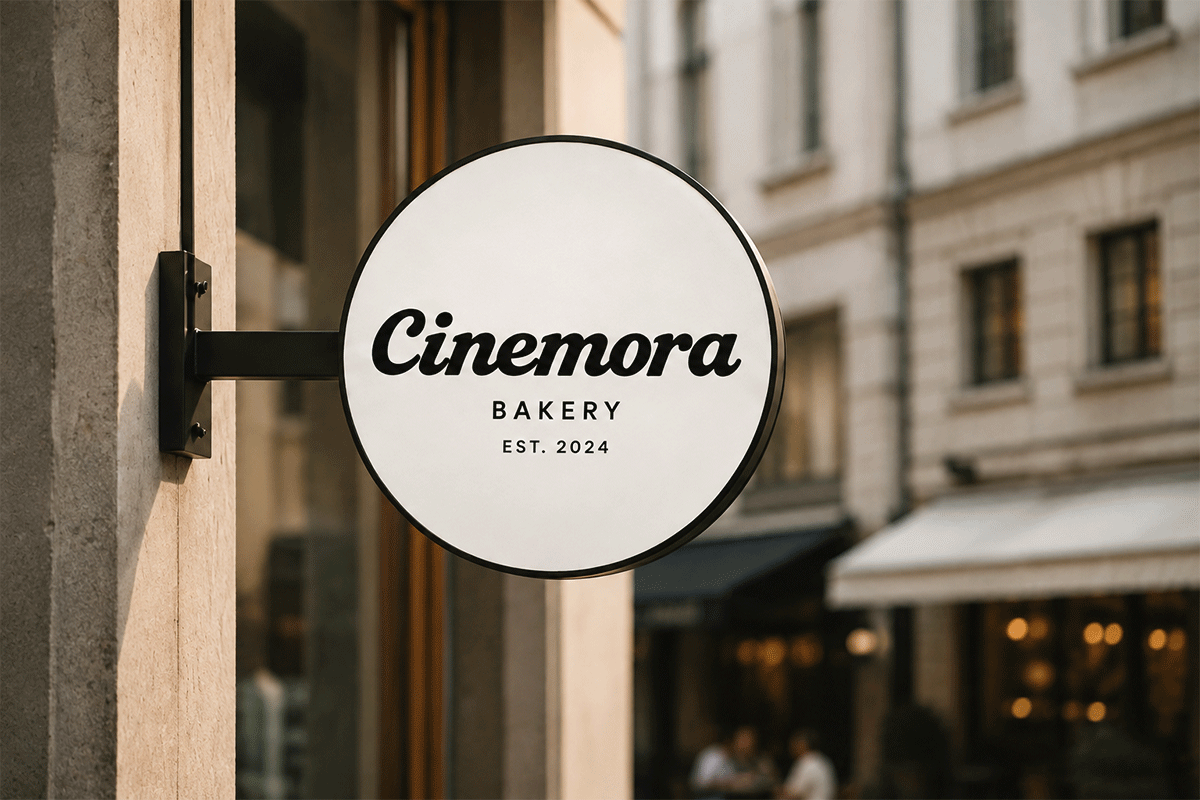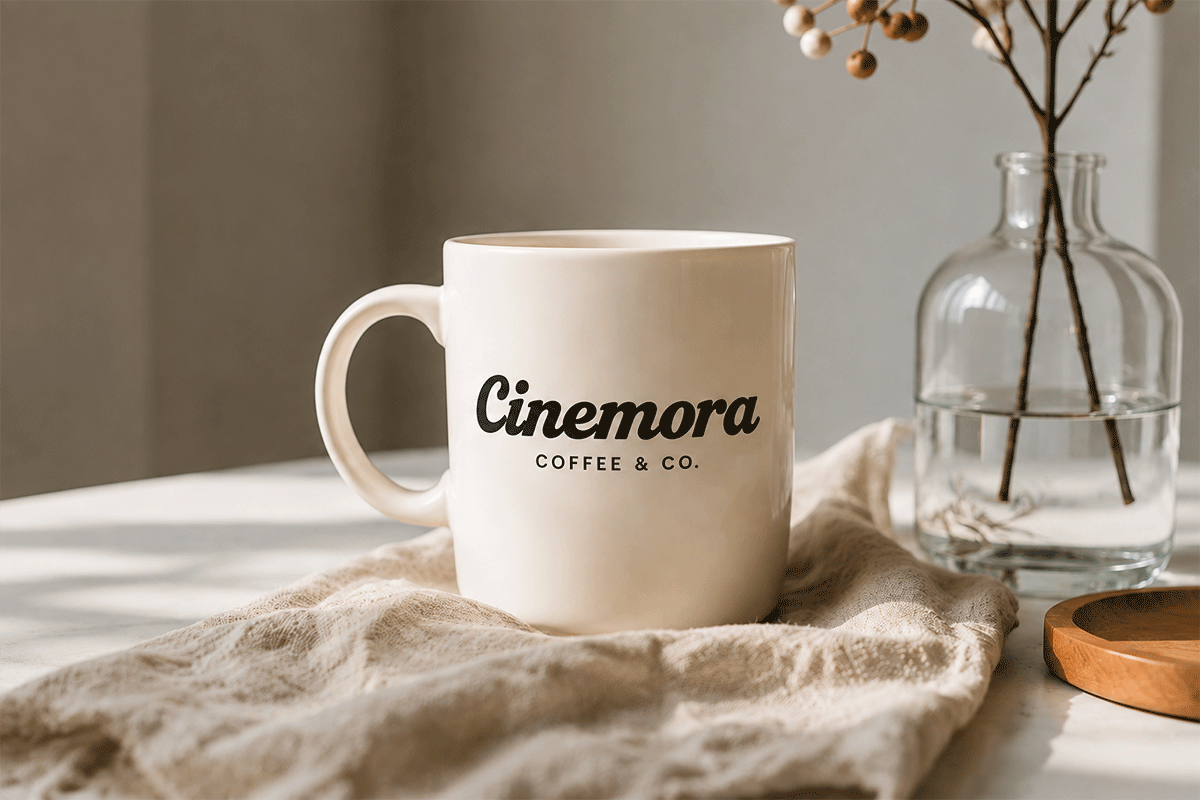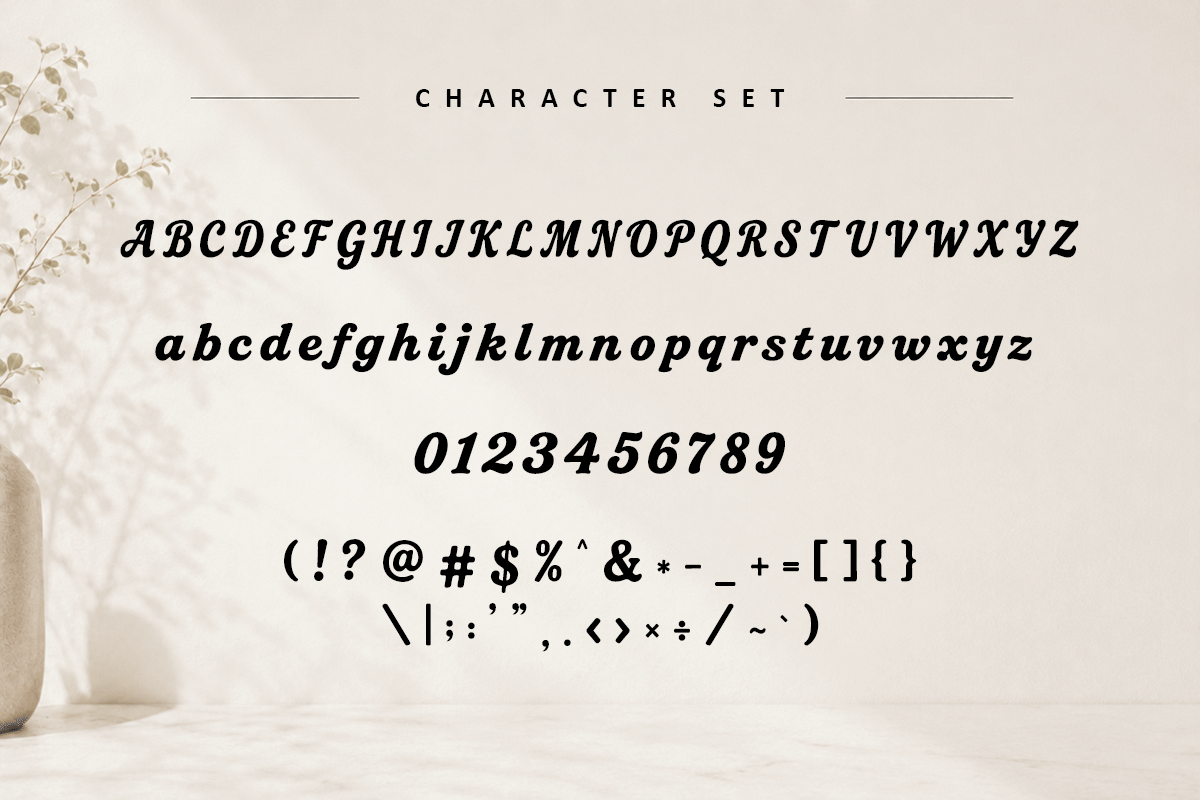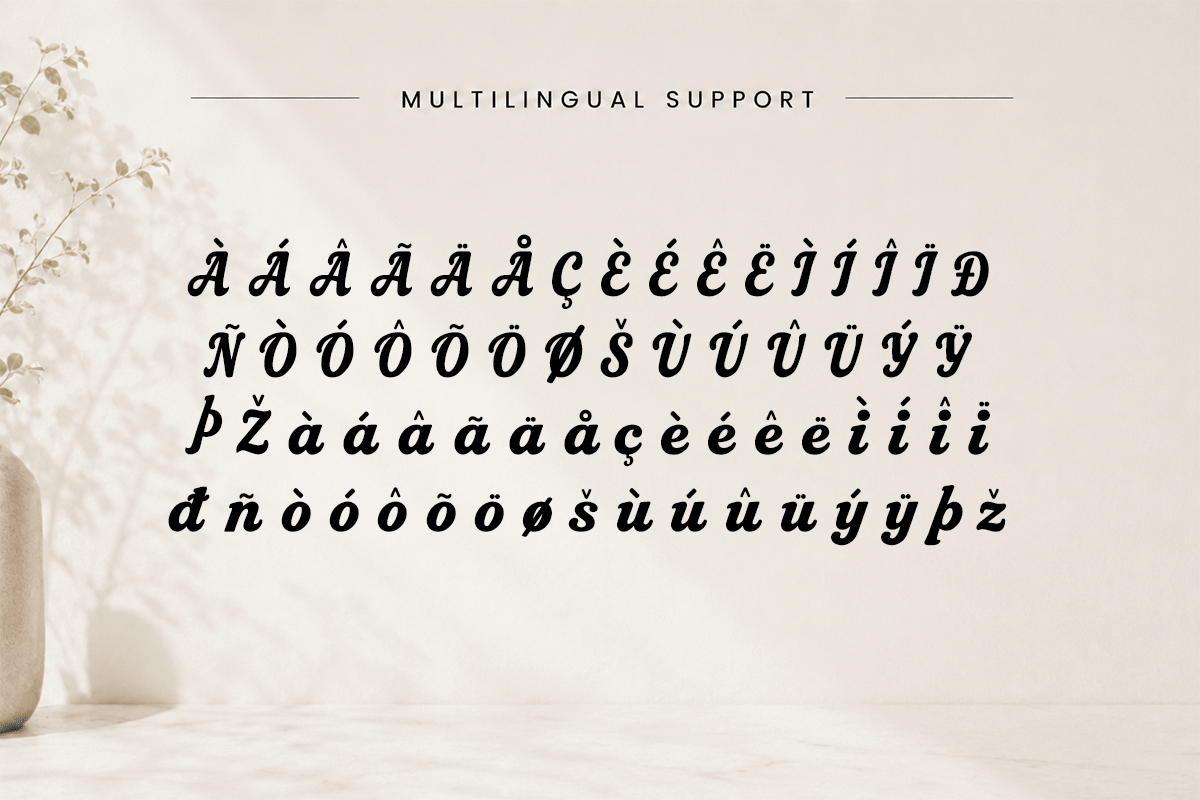
Cinemora A Modern Handwritten Font is a refined script typeface featuring smooth strokes, graceful curves, and a naturally flowing character. Its elegant yet approachable appearance gives your typography a sophisticated look without feeling overly formal.
Designed for beautiful display use, Cinemora A Modern Handwritten Font is perfect for branding, logos, wedding invitations, photography, packaging, social media graphics, greeting cards, fashion projects, beauty products, quotes, editorial designs, and personal signatures.
The soft curves and balanced letterforms make Cinemora A Modern Handwritten Font suitable for both modern and timeless compositions. It works beautifully in romantic, minimalist, lifestyle, and premium branding projects where a touch of warmth and elegance is needed.
Cinemora A Modern Handwritten Font is an excellent choice for designers looking for a script font that feels smooth, elegant, friendly, romantic, and timeless.